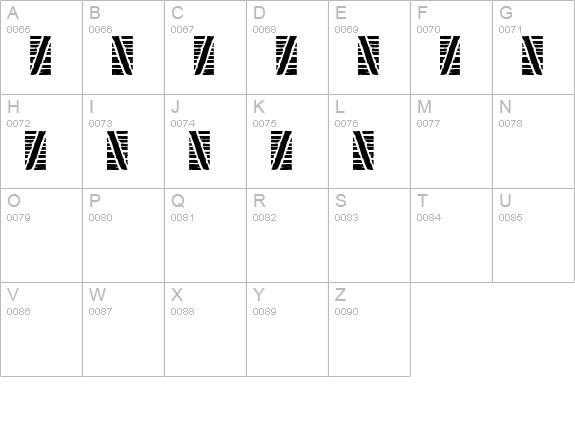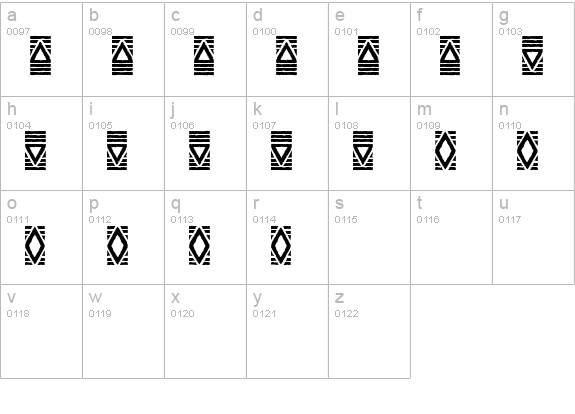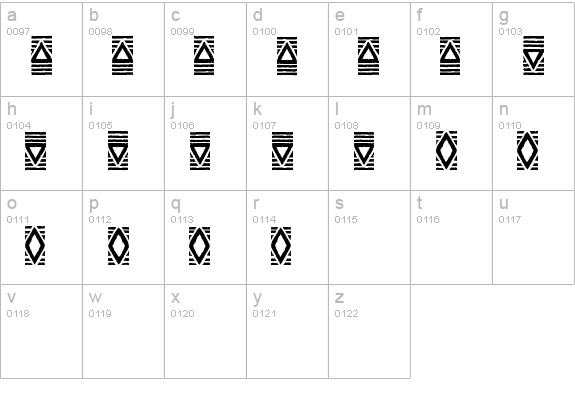
Stoned-MosaicFive font is a unique and eye-catching typeface that blends elements of stone textures and mosaic patterns to create a mesmerizing visual effect. This font exudes a sense of strength and durability, making it perfect for projects that require a bold and distinctive look. The intricate details of the mosaic design add depth and complexity to the characters, making each letter a work of art in itself. Best of all, Stoned-MosaicFive font is available for free download at FontsMarket.com. Whether you're a designer looking to add a touch of sophistication to your project or a creative looking to make a statement, this font is sure to make a lasting impression. Download Stoned-MosaicFive font today and elevate your designs to a whole new level.